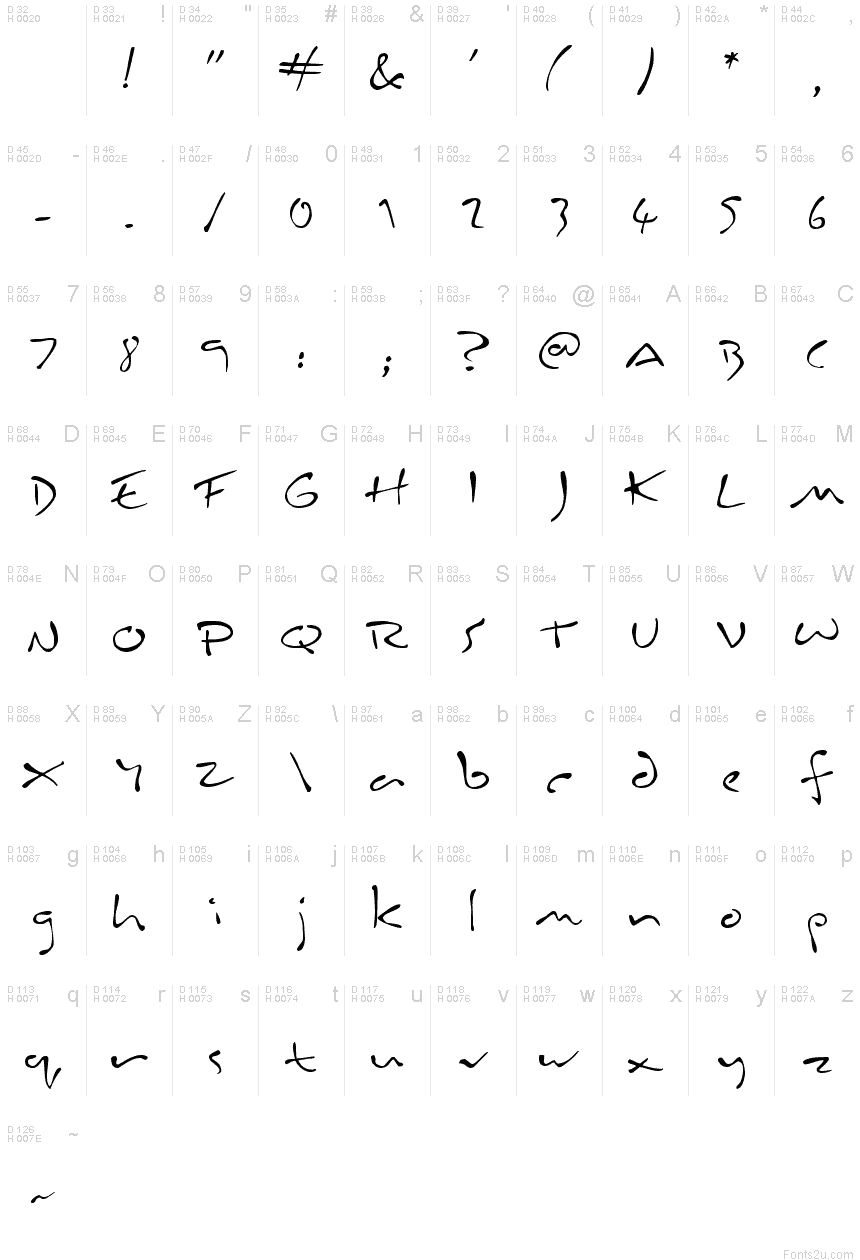
Inkburrow
Inkburrow font by Uddi Uddi is a free handwritten typeface with a wiry, inky energy that feels like it was scratched straight onto the page. The letters sway and twist with irregular rhythm, as if they’re tunneling across the line rather than sitting politely on it. Those tall, spiky strokes and soft, inky blobs give it a raw, journal-like texture that feels personal, offbeat, and unmistakably human.
Using Inkburrow, your titles instantly take on a scribbled, sketchbook mood that works beautifully for zines, art posters, indie album covers, comics, personal blogs, and moody quote graphics. This free font shines when you set it large and let the quirky silhouettes breathe, then pair it with a clean sans serif for body text so the wildness stays in the headlines where it belongs.